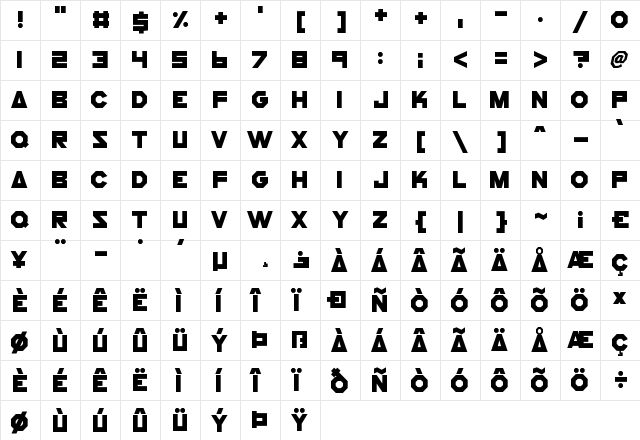
Cogs And Bolts Regular
Design Context for Cogs And Bolts Typeface
Cogs And Bolts offers clean, dependable letterforms without strong stylistic allegiance, making it a practical choice for designers who need flexibility.
Pro Tip: Use Cogs And Bolts in both headline and body roles to test its range before committing to a single application.